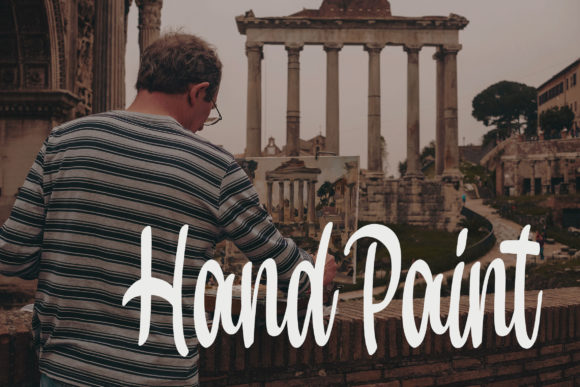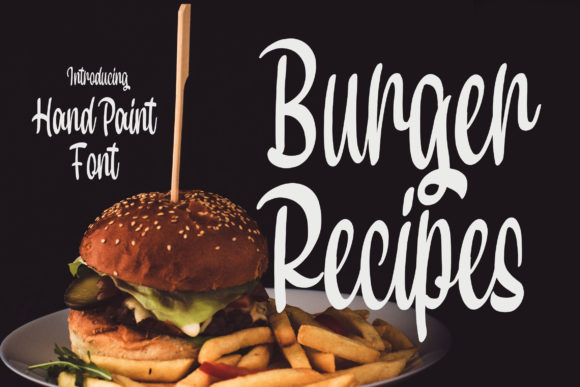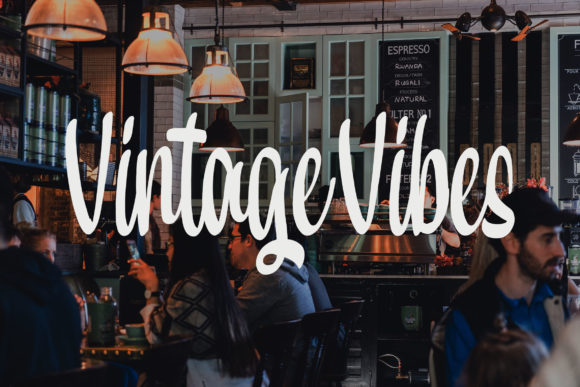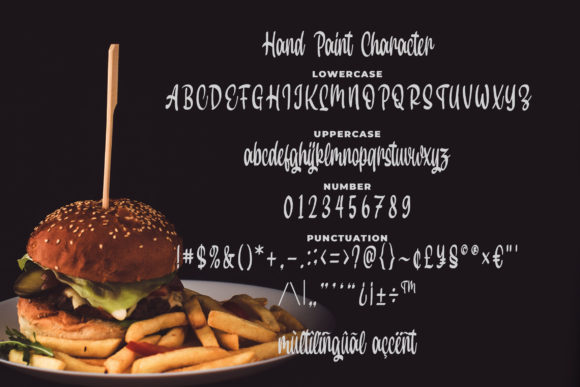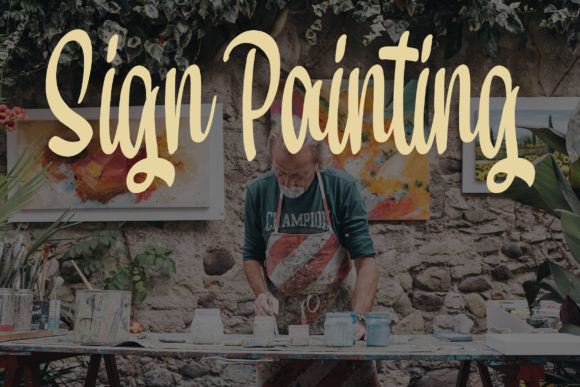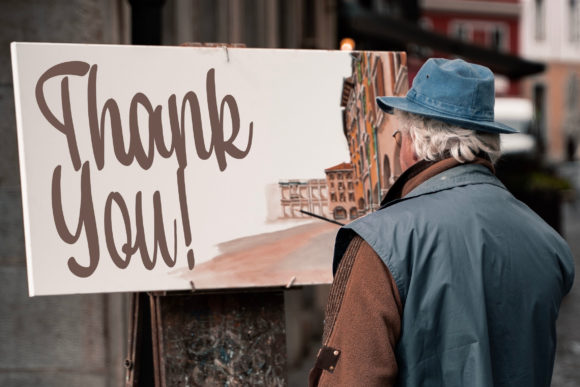
Script Fonts Hand Paint Font 0 145 FacebookTwitterPinterestWhatsApp Hand Paint Font Poster 2 Hand Paint Font Poster 3 Hand Paint Font Poster 4 Hand Paint Font Poster 5 Hand Paint Font Poster 6 About Hand Paint Font Hand Paint is a sweet old fashioned script with a unique twist. Use it to add a nostalgic feel to any design project! DOWNLOAD NOW